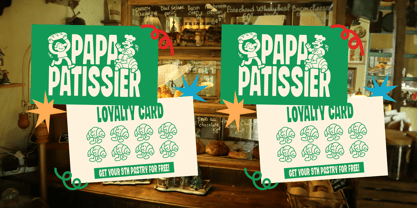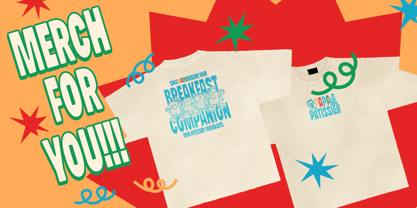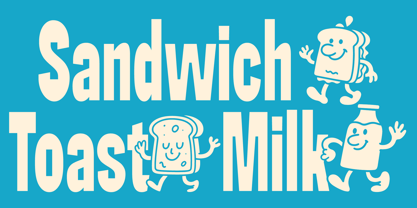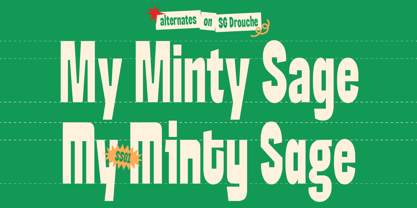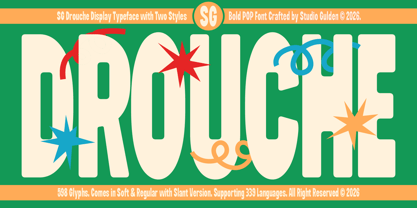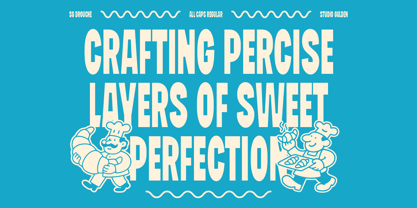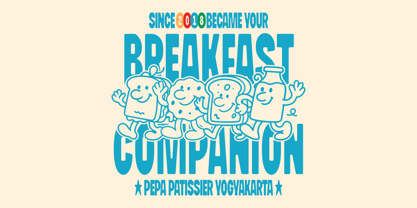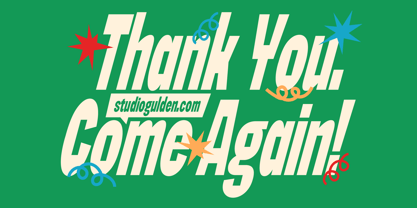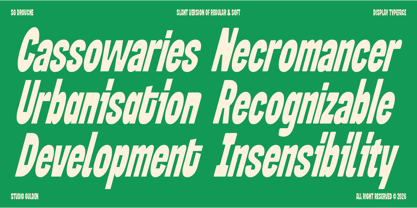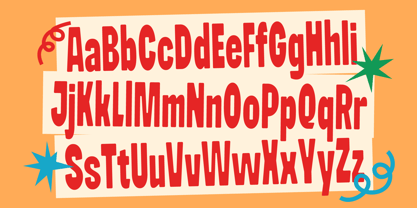
SG Drouche
by Studio Gulden
The SG Drouche Font Family was designed by Umar Al Farouq, Jodi El Ghazi and published by Studio Gulden. SG Drouche contains 4 styles and family package options. More about this family
SG Drouche is a display typeface built for the edge of modern design. It seamlessly bridges the gap between massive retro-pop shapes and the sharp, aggressive energy of contemporary brutalism. This font is a powerhouse for designers who need to dominate a layout with sheer visual weight and a raw, industrial attitude. If you are looking to break away from the polished and the predictable, SG Drouche provides the heavy-duty toolkit required to make an unignorable statement. Crafted by Studio Gulden, SG Drouche is a masterclass in controlled chaos. Its construction is defined by ultra-thick stems and razor-thin counters that create a high-contrast, rhythmic vibration. The "Regular" and "Soft" styles offer a choice between clinical precision and a slightly more organic feel, while the "Slant" versions introduce a sense of high-velocity movement. Equip your design arsenal with the raw power of SG Drouche; download it now and redefine the limits of your next project.
Designers: Umar Al Farouq, Jodi El Ghazi
Foundry: Studio Gulden